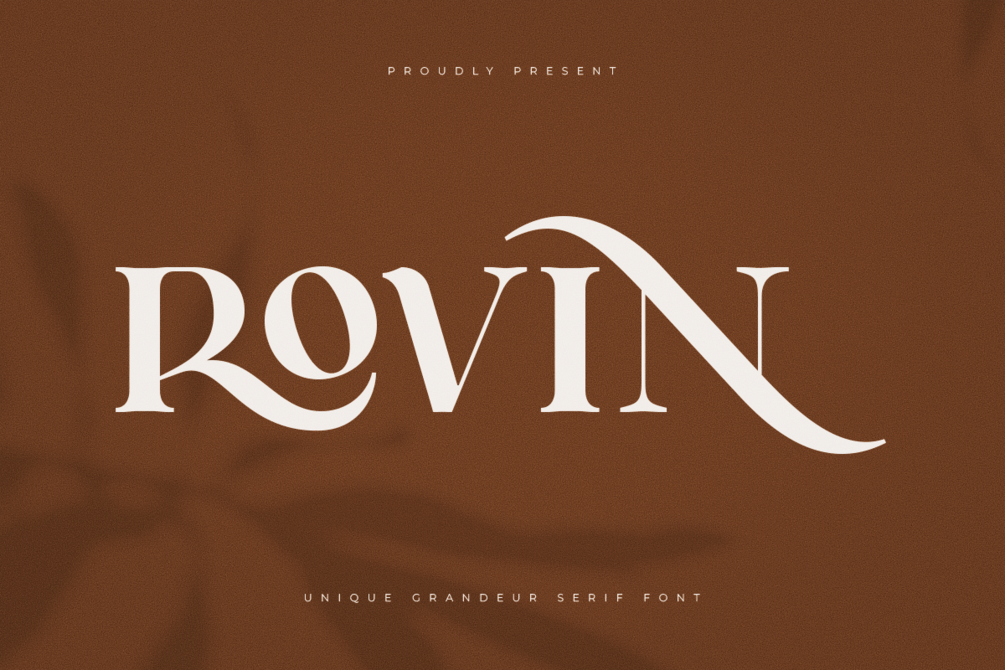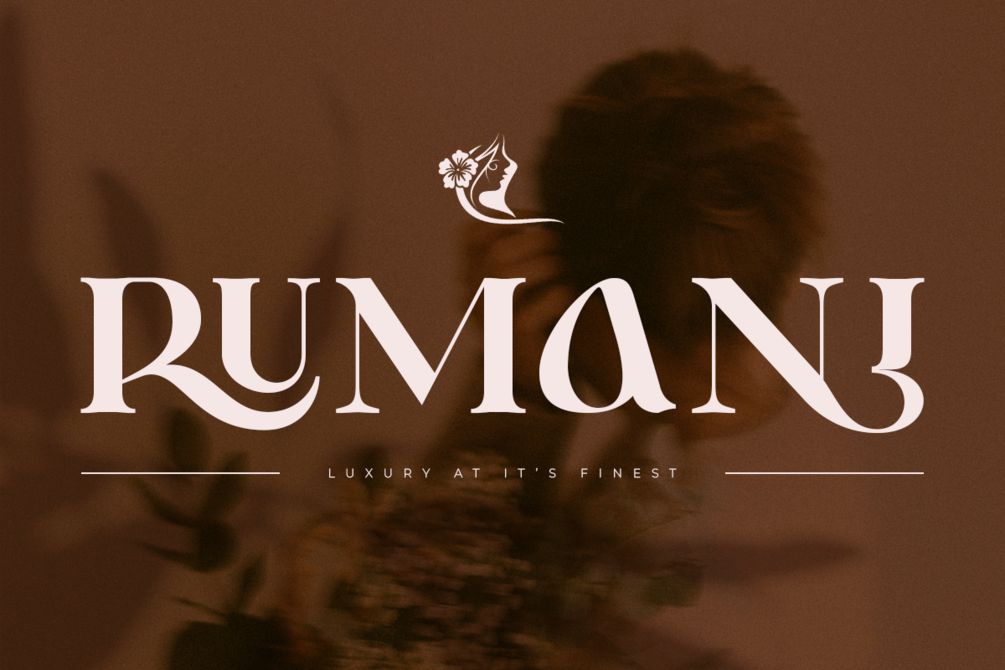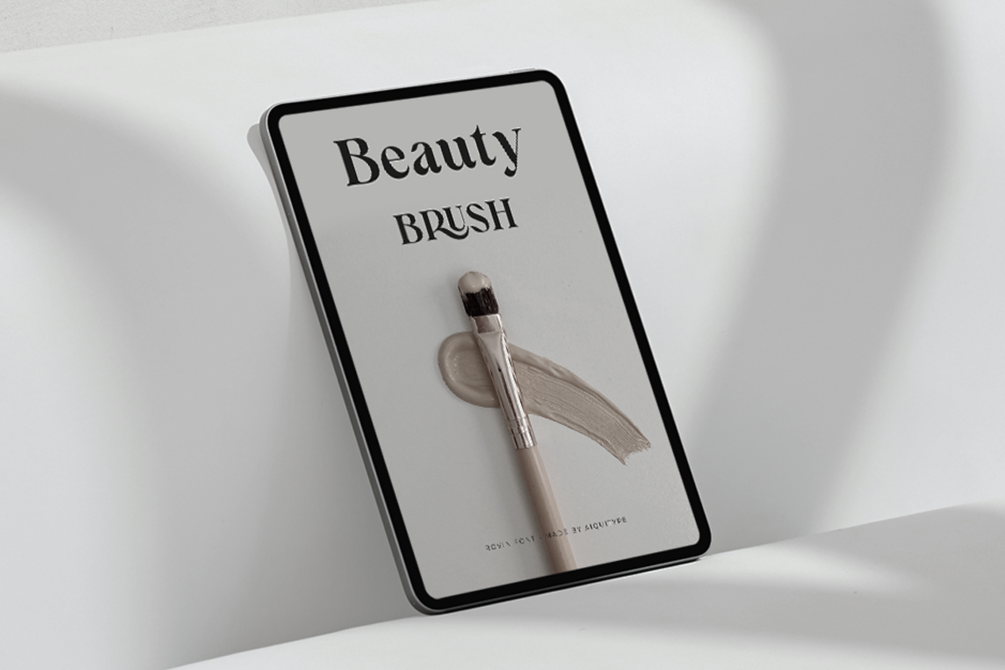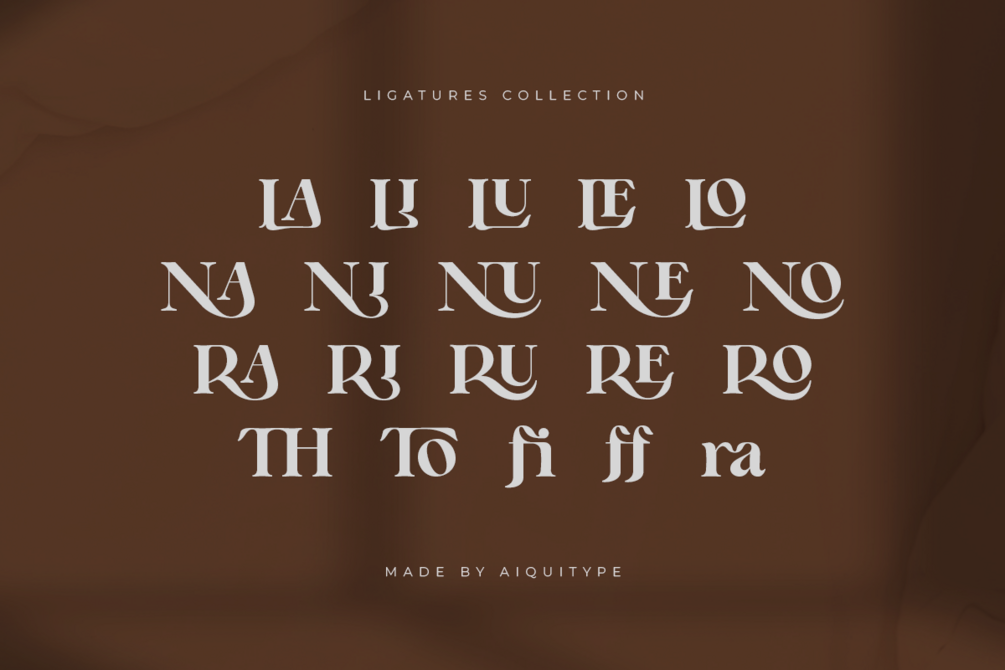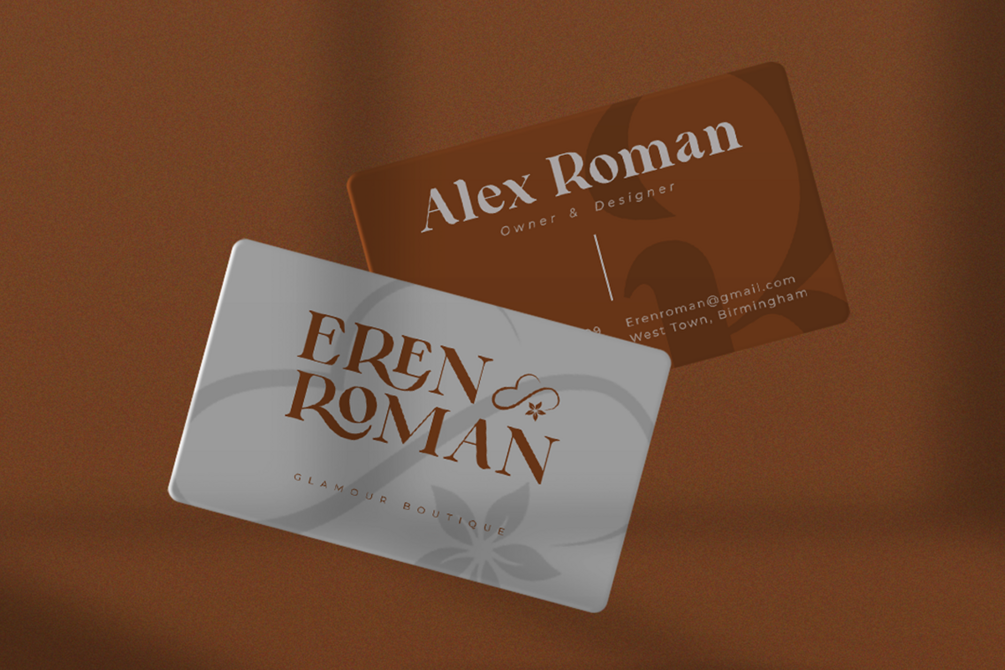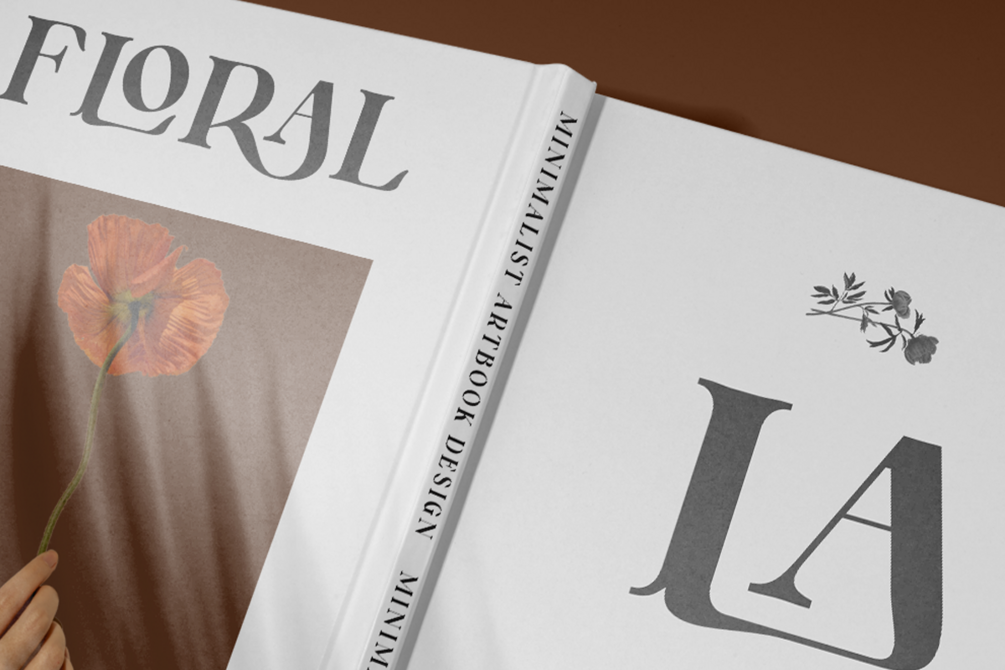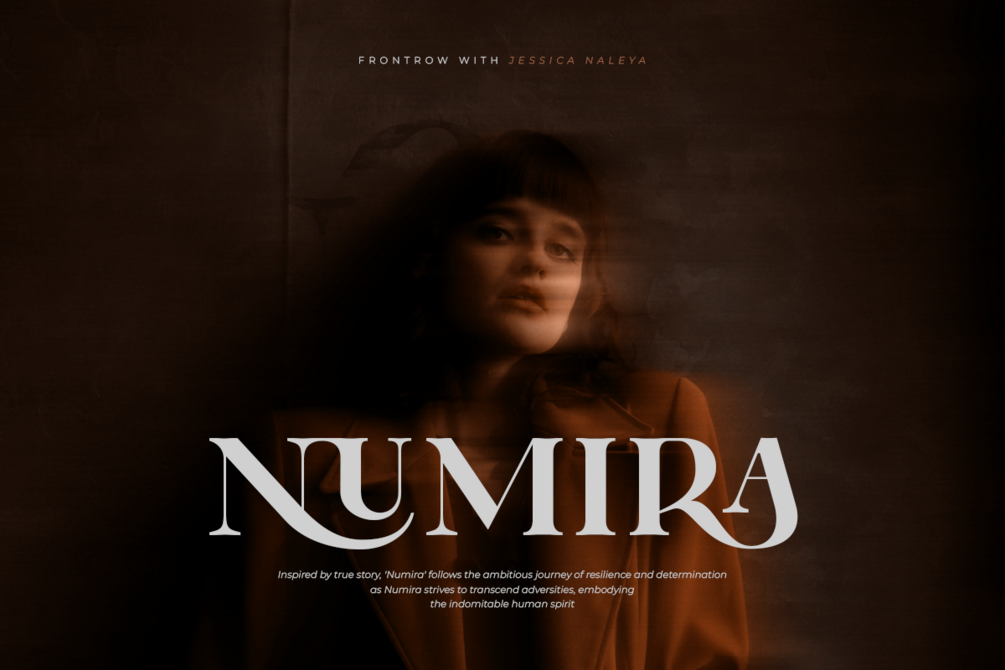
Rovin - Unique Grandeur Serif Font
Introducing
Rovin - a captivating blend of Old Style and Modern Serif, meticulously crafted to exude timeless elegance and contemporary sophistication. This unique serif font seamlessly merges classic charm with a modern twist, creating a versatile typeface ideal for a myriad of design applications. It's perfect font for branding, logo design, film covers, fashion brands, or other stylish endeavors, Rovin elevates the visual narrative with its refined aesthetics and versatile appeal.
1. Unique characters on alphabet
2. Extra 30 Ligatures included
Let's experience the perfect harmony of heritage and innovation with every stroke, embodying a unique grandeur that sets your designs apart.